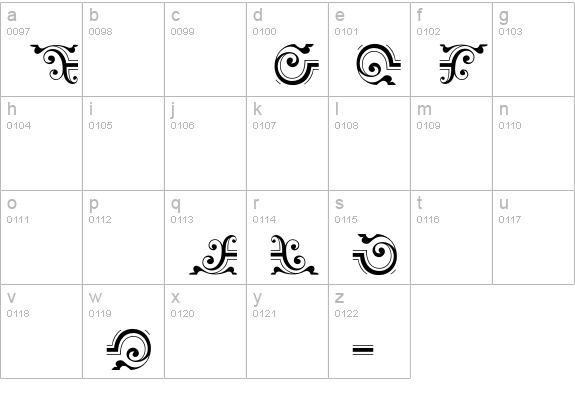
FleuronFour Font Details
FleuronFour is a charming and elegant font that brings a touch of sophistication to any design project. With its delicate curves and intricate details, this font is perfect for adding a touch of refinement to invitations, branding, and more. The FleuronFour font is versatile and can be used for a wide range of design applications. The best part? FleuronFour is available for free download at FontsMarket.com. This means you can easily access this beautiful font and incorporate it into your projects without any cost. Don't miss out on the opportunity to enhance your designs with the timeless beauty of FleuronFour. Download it now and start creating stunning visuals today!